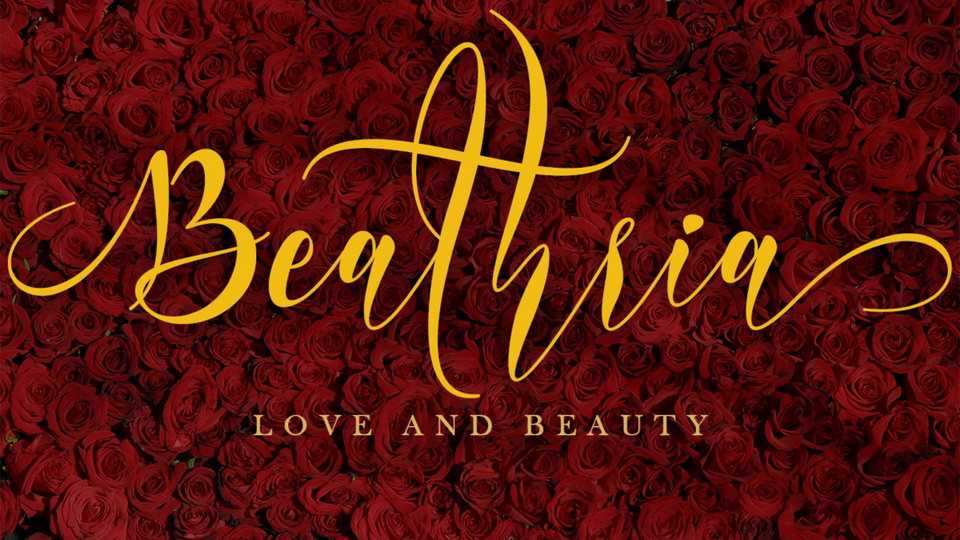
Download Beathria font, a modern calligraphy typeface that’s made with a subtle touch resulting in a high quality type. Beathria is very beautiful and elegant which is suitable for all kinds of your work.